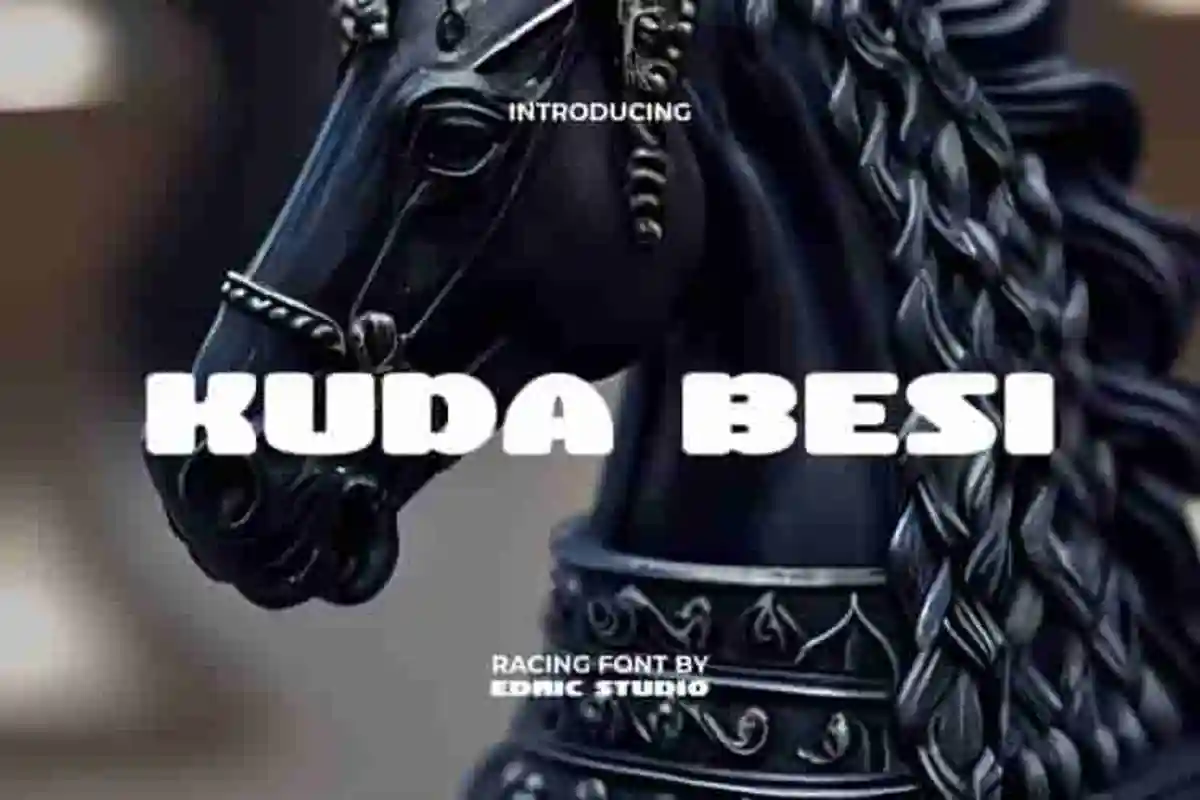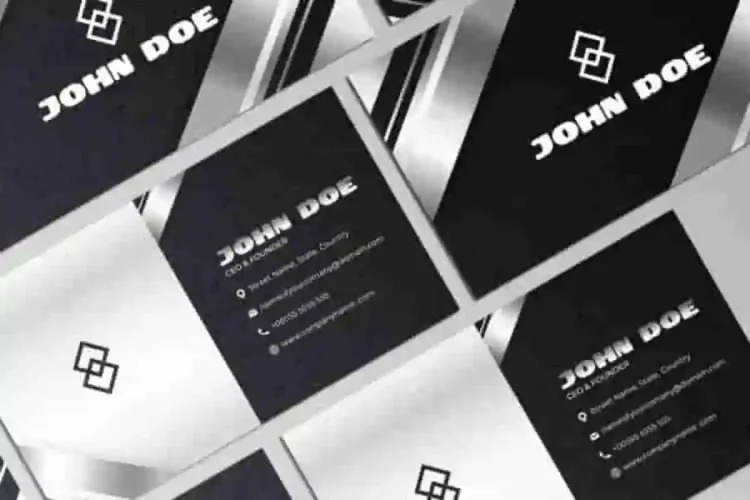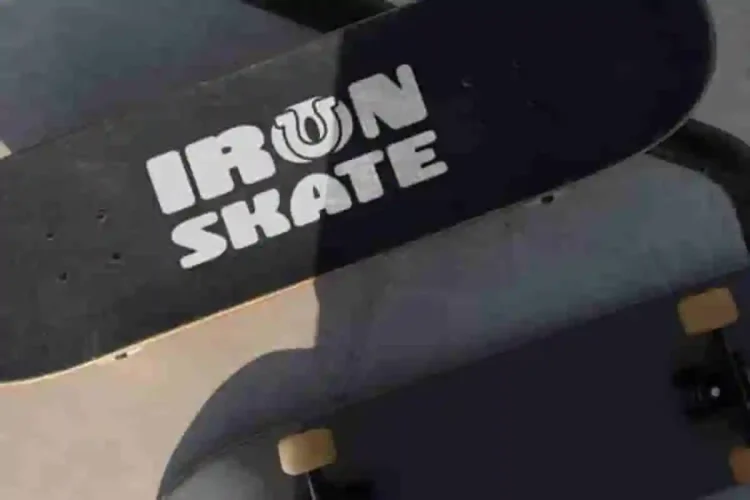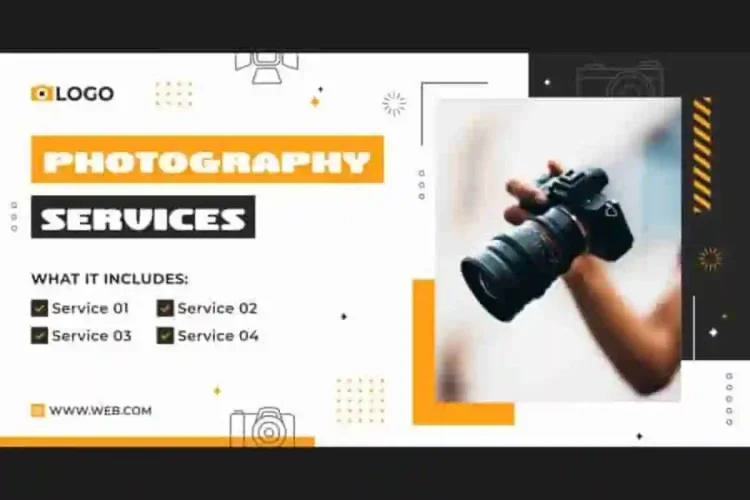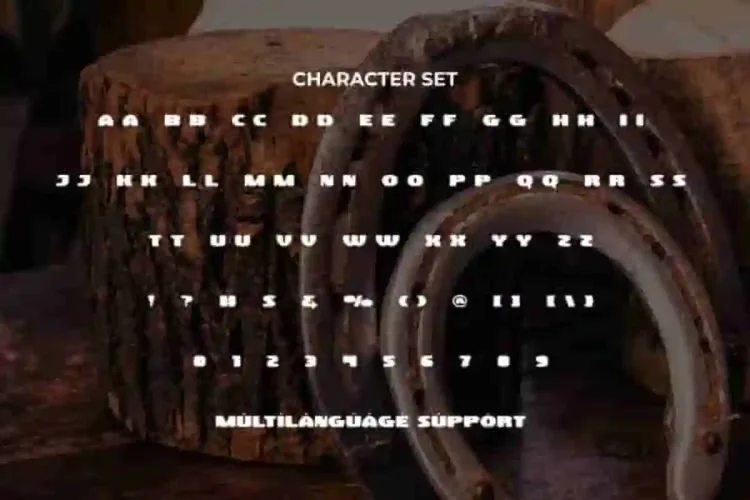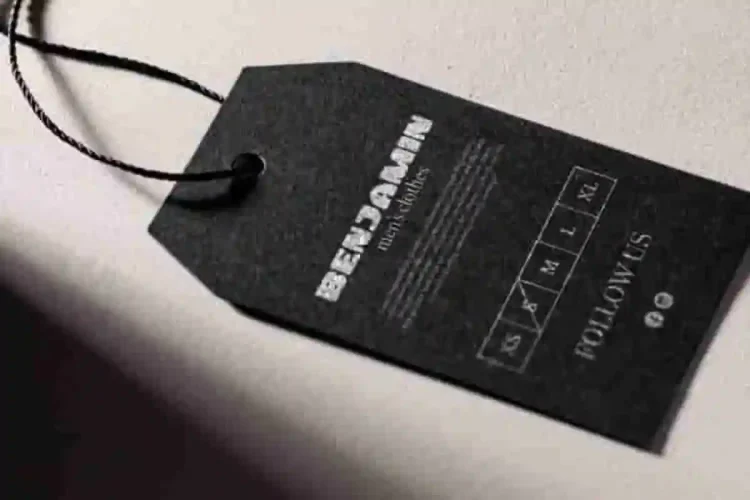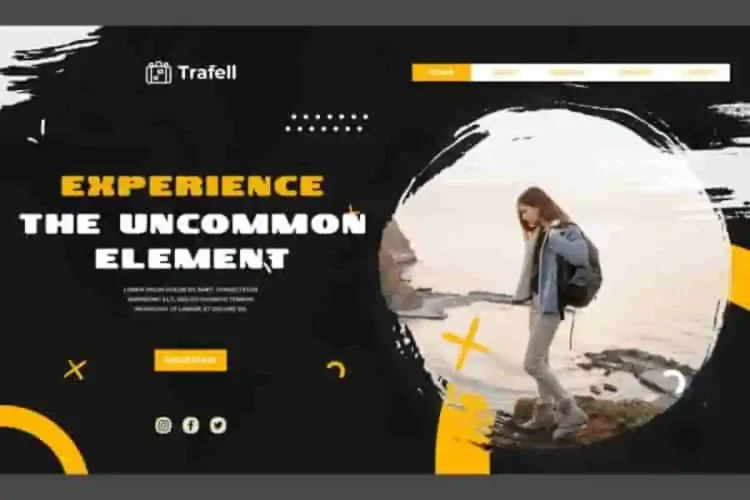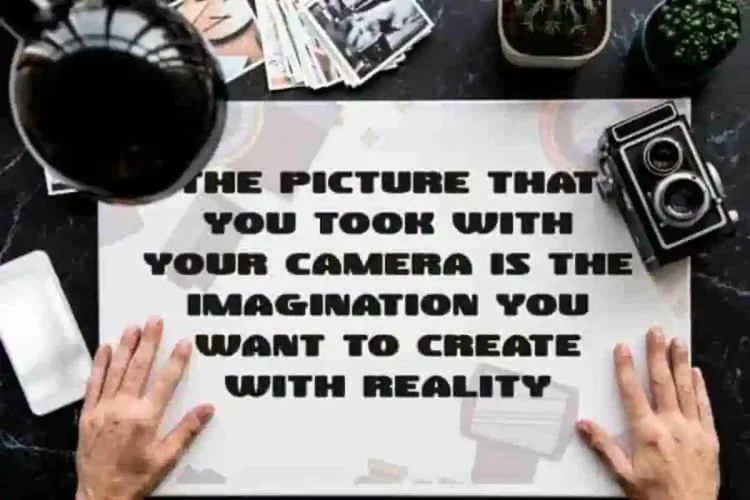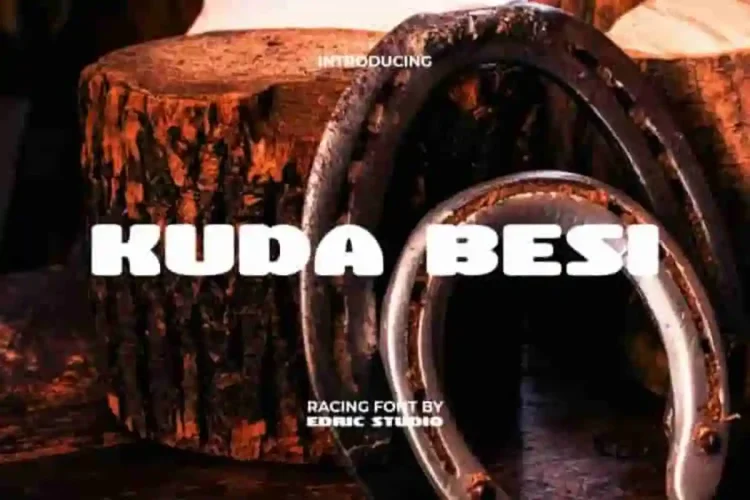
Kuda Besi Comic Display Font
Kuda Besi Comic Font a tough bouncy sport display typeface designed to make every project stand out. With its high contrast and dynamic letterforms, this racing-inspired font delivers energy, strength, and impact—perfect for brands and designers who want to leave a lasting impression.
Kuda Besi Comic Display Font comes with a full set of Uppercase and Lowercase letters, Number, Punctuation, and Symbols. This font is based on a fairly bubble-like letter style with a trendy racing theme. Thus creating an incredibly impactful and contemporary font. Great for automotive, corporate, equestrian, film, graphic design, men’s clothes, movie, outdoor events, printing, publishing, photography, sports, and so much more!